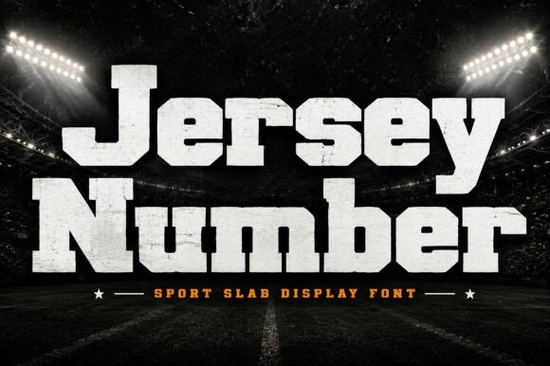
If you're designing team jerseys, sports posters, or varsity-style merch and need numbers that look like they belong on a championship banner you’ll want to try the Jersey Number Font. It’s not just another bold digit set. This display font draws directly from real athletic branding: think stitched lettering on vintage baseball uniforms, screen-printed football warm-ups, and hand-painted gym signs. The characters are thick, grounded, and unmistakably sporty without feeling cartoonish or dated.
What makes Jersey Number different from other number fonts?
Most number-only fonts lean either too technical (like digital displays) or too decorative (like script or grunge). Jersey Number sits firmly in the middle: it’s built for visibility and presence. Each numeral has a sturdy slab-serif base, generous spacing, and subtle bevel-like contrast details that translate well whether you’re printing on cotton tees, cutting vinyl for decals, or layering text over photos in Canva or Illustrator.
It includes uppercase letters and standard punctuation too, so you can pair team names with numbers seamlessly no mismatched fonts needed. And because it’s designed as a display typeface (not for body text), it holds up beautifully at large sizes on banners, wall art, or even embroidery mockups where clarity matters more than fine detail.
Who actually uses this font and how?
Small business owners making custom sports apparel often tell us they reach for Jersey Number when clients ask for “that classic league look.” Print-on-demand sellers use it for NCAA-inspired hoodies, youth soccer camp T-shirts, and retro basketball posters. Crafters building DIY iron-on transfers or Cricut-cut vinyl decals appreciate how cleanly the outlines cut even at 3–4 inches tall.
It also works surprisingly well outside athletics. One teacher used it for classroom “Student of the Month” certificates; a board game designer chose it for player tokens and score trackers; and a streetwear brand layered it over distressed textures for limited-run snapbacks. If your project needs confidence, legibility, and a little swagger, this font delivers without overcomplicating things.
How does it compare to other popular Creative Fabrica display fonts?
Like Spooky Moon Font, it’s got strong personality but swaps eerie charm for energetic clarity. Unlike Robot Parts Font, which leans into mechanical precision, Jersey Number feels hand-crafted and human-scaled. And while Subway Graffiti Font shouts urban edge, this one speaks team pride and shared tradition.
Real-world tips before you download
• Test it at 120pt+ first this font shines big, not small.
• Pair it with a simple sans-serif (like Montserrat or Open Sans) for supporting text avoid competing bold fonts.
• For vinyl cutting, check your software’s “outline” or “convert to curves” function its solid shapes cut cleanly.
• Use the all-caps version for names and abbreviations (“TEAM USA”, “VARSITY”) to match the athletic tone.
• Remember: it’s a display font, so skip using it for paragraphs, pricing tables, or fine print.
Ready to try it?
Download the Jersey Number Font and open it in your design app. Start with one jersey number say, “23” over a plain background. Adjust tracking slightly (+20–40) to give it room to breathe. Then add a name below in a neutral font. That’s your baseline. From there, experiment: try it reversed out of a color block, layered over a grain texture, or scaled unevenly for a dynamic poster layout. You’ll quickly see why so many creators keep it in their go-to folder not as a novelty, but as reliable visual shorthand for energy, unity, and effort.